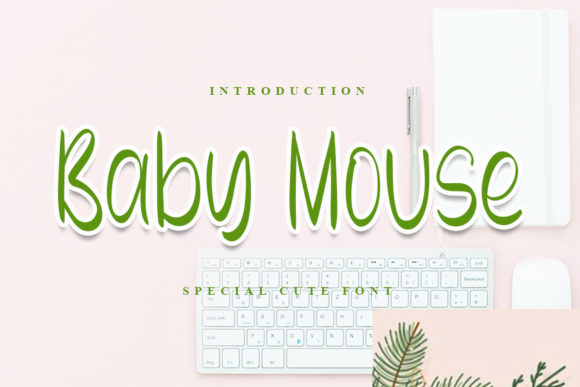
If you're in search of a font that radiates personality, playfulness, and unique charm, look no further than Baby Mouse - the premier display font crafted by Inermedia STUDIO. This captivating creation has been meticulously designed to stand tall and proud, bringing a touch of whimsy and authenticity to your creative endeavors.
Baby Mouse excels in a diverse range of informal contexts, effortlessly adding a dash of personality to logos, posters, branding, invitations, social media graphics, and much more. Its tall and friendly stature ensures that your messages will be noticed and remembered, while its quirky nature adds a touch of unexpected delight.
With Baby Mouse's authentic and neat feel, you'll have the power to create designs that are both professional and endearing. It's the perfect choice for businesses that want to connect with their audience on a more personal level, injecting warmth and approachability into their branding.
Here's a glimpse of the magic you can create with Baby Mouse:
- Design logos that are bursting with character, making an unforgettable first impression.
- Create posters that pop and command attention, leaving a lasting impact on your audience.
- Develop branding that feels authentic and genuine, fostering meaningful connections with your customers.
- Craft invitations that exude warmth and charm, inviting guests to join your special occasion.
- Create captivating social media graphics that stand out in the crowded digital landscape, attracting followers and boosting engagement.
Embrace the playful spirit of Baby Mouse and let your creativity soar. This exceptional font is ready to transform your designs into extraordinary works of art, leaving a lasting impression on all who encounter them. Don't settle for ordinary - choose Baby Mouse and embark on a journey of boundless creativity today!